A look back at Letrástica 5 and a showcase of the real muses behind our work (our pets)
Connecting with community in Guadalajara
It’s been a heck of a week to live in the US, so I’m looking back on the kick-ass Letrástica festival that Zrinka helped organize in Guadalajara—and reflecting on XYZ’s pets (scroll down for pics!).
Where to start when talking about Letrástica? First and foremost, go to it next time! (On a biennial schedule, the next festival is planned for October 2026.)
The reels on Instagram capture the energy and enthusiasm of the festival. It was a welcoming entry point to a broader type design community than the folks I see at other events, with attendees from across the Americas (but mostly Mexico) and most talks given in Spanish, made accessible by Ro Hernandez’s live translations.
After spending a week working in person with Zrinka before the conference, I was glad to extend that collaborative energy into teaming up to provide a public crit session for some typefaces in progress. (If you’re a student who could use another perspective on a project, I’m always happy to do a crit via Zoom.)
All of the programming was fantastic, but I’ll specifically call out a few captivating presentations by speakers this audience may be less familiar with:
Experimental letterforms captured in stonecarvings (and more ephemeral media) by Alicia Márquez
The legacy of Peruvian “chicha” style sign-making and mural lettering, in Elliot Tupac’s capable hands
Memories of middle-school notebook scribbles, all grown up in Marte’s lettering
Explorations of personal identity and type history by Cecilia del Castillo—fresh out of the Type]Media program
The upcoming launch of Kernés, a new fonts-in-progress collective from Mónica Munguía, Ro Hernández, Sandra Morales, and Tamara Segura
Also notable: this gathering was not dominated by men like some other type events—which became especially clear when at the moment of the photo op below. Letrástica is modeling its motto: ¡Letras para todxs! Type for all!
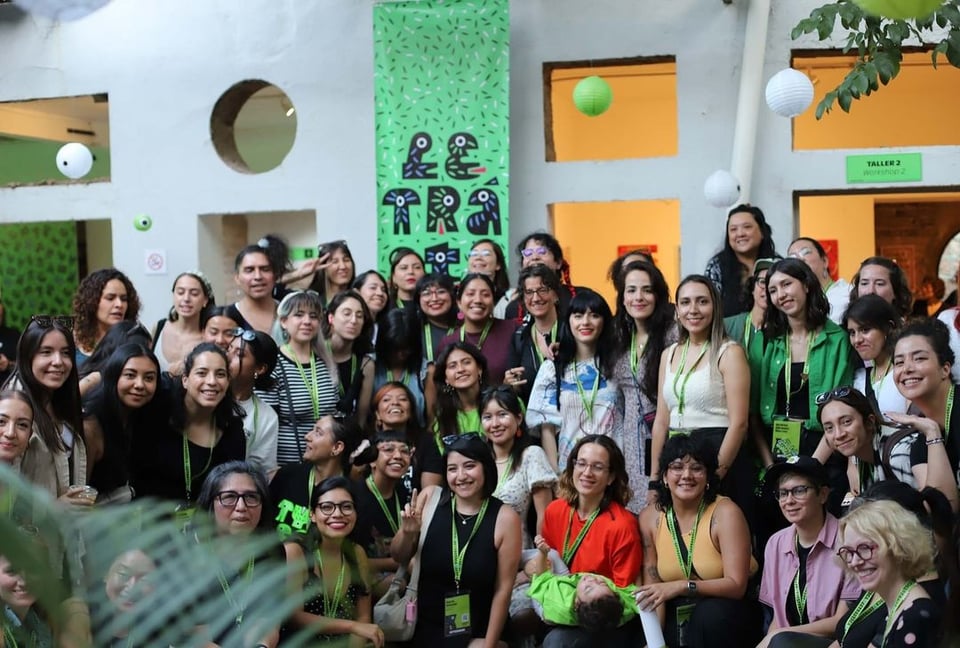
And now… meet XYZ’s pets!
My little cat Spruce turned 19 this week, and apparently, that’s 92 in people years! 🥳 It seemed like a good occasion to celebrate the four-legged muses that keep XYZ running.
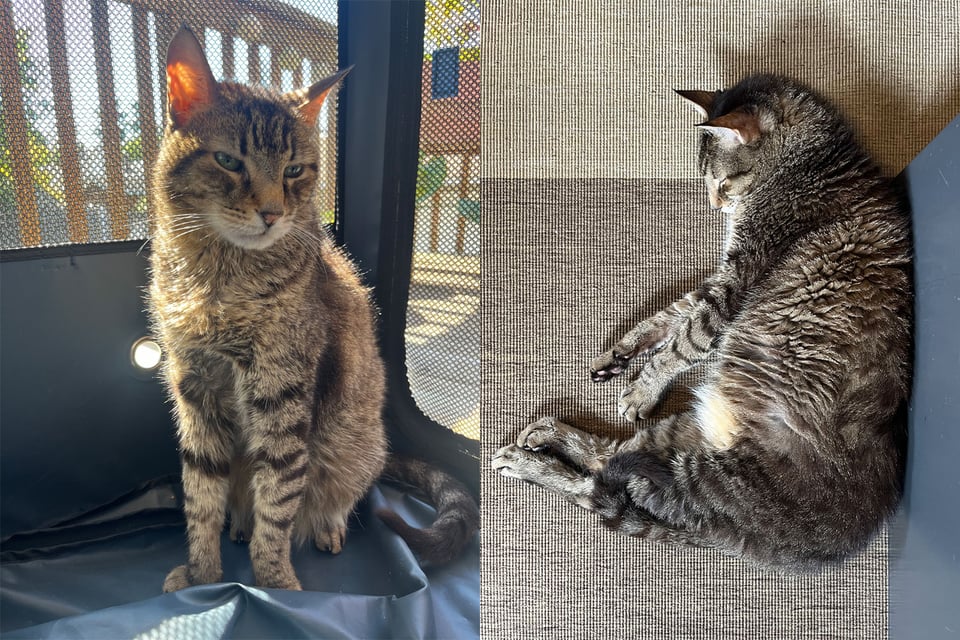
If you’ve Zoomed with Ben, you may have seen his dogs Rosie and Pepper curled up in the back of his studio shed.
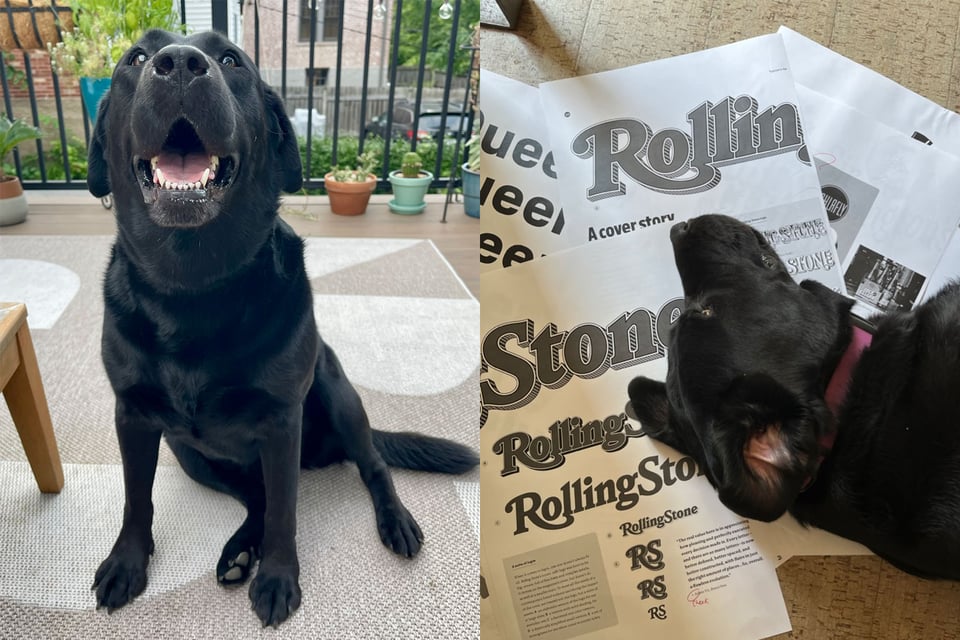
Bound in dogness and in shedding, they’ve taken the Kiel household by storm.
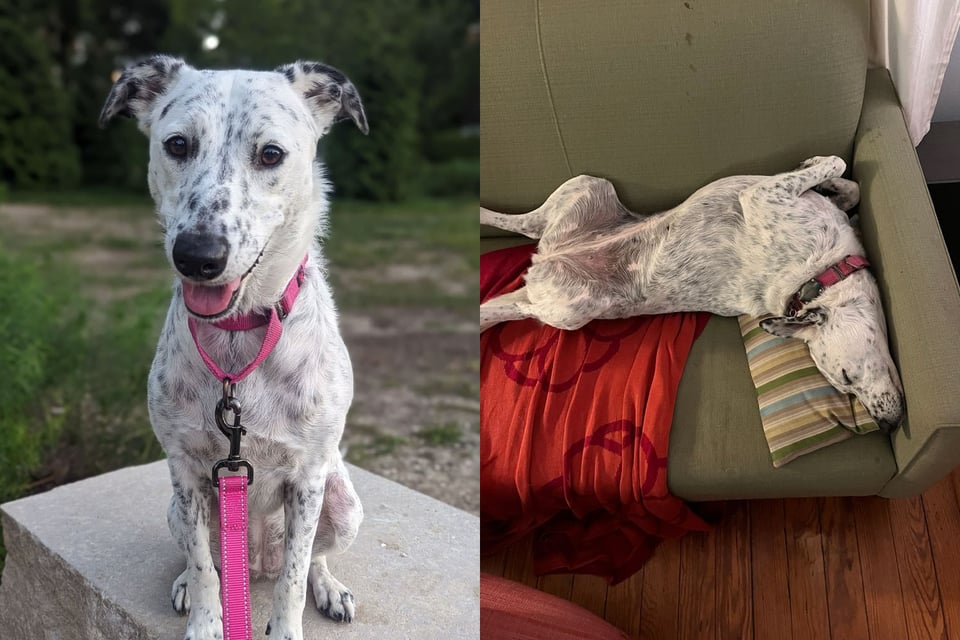
Zrinka has a daring duo of cat (Lipa) and dog (Tofu)!
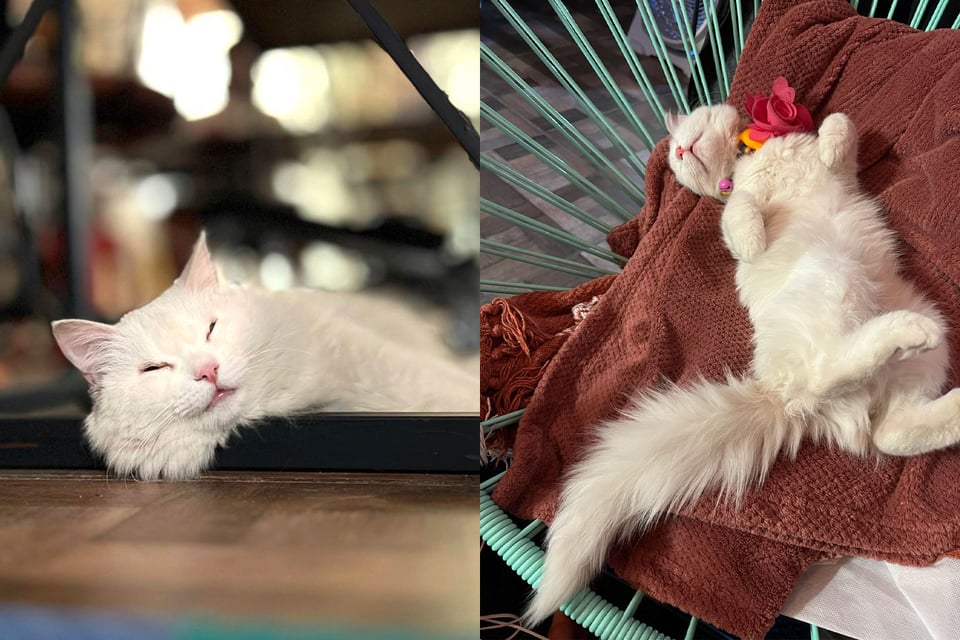
In a household with a toddler, the two of them get plenty of attention, whether they want it or not.
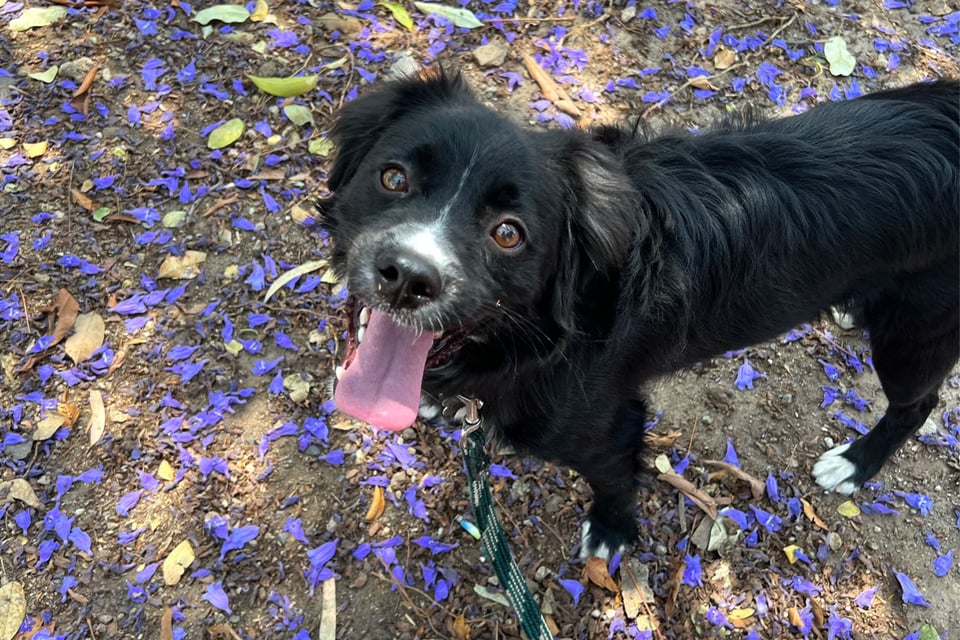
Tyler also shares her home with a cat and a dog: Meet Stevie and Jojo.
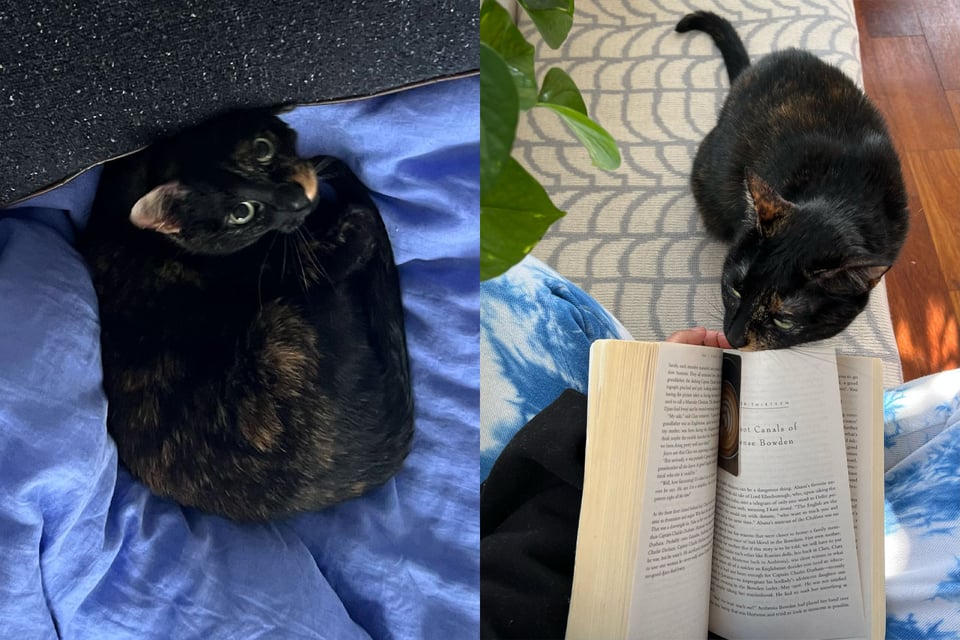
They’ve forged a semi-stable truce by keeping a lot of distance.